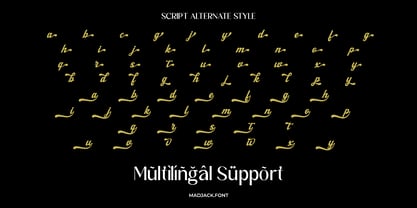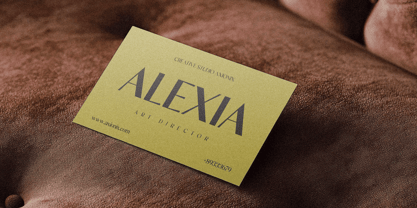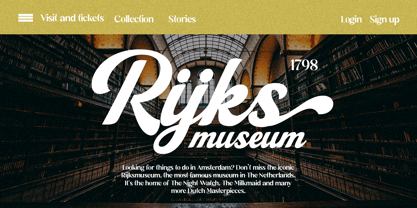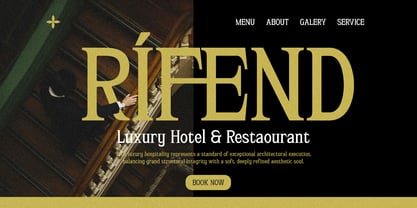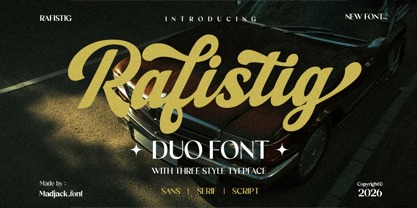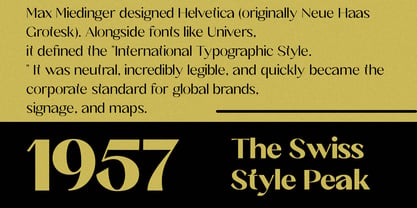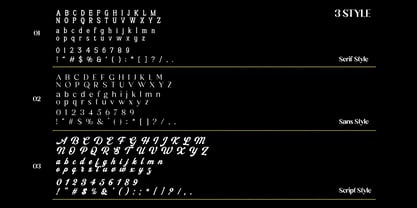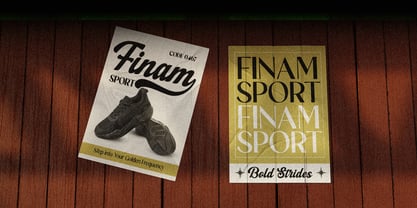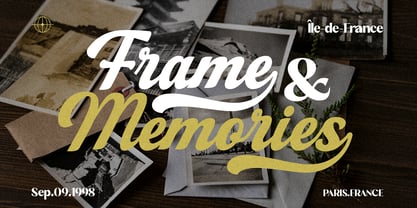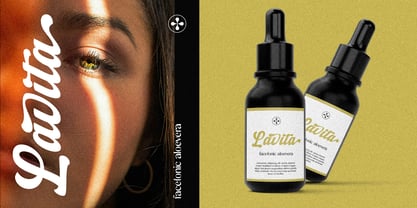
Rafistig
The Rafistig Font Family was designed by Zaki Muhammad and published by madjack.font. Rafistig contains 13 styles and family package options. More about this family
Rafistig is a premium duo font that beautifully blends a bold handwritten script with a sophisticated serif typeface, creating the perfect harmony between modern elegance and timeless luxury. Designed for creatives who want to make a lasting impression, this typeface delivers a refined aesthetic with a strong personality, making every design feel exclusive and memorable.
The script style features smooth flowing curves, bold strokes, and carefully crafted letterforms that provide a natural handwritten appearance while maintaining excellent readability. Meanwhile, the serif companion offers a clean, classic, and high-end look that perfectly complements the expressive script. Together, they create endless typography combinations suitable for both contemporary and vintage-inspired projects.
Whether you're designing luxury branding, fashion campaigns, cosmetic packaging, wedding stationery, restaurant identities, editorial layouts, or premium social media content, Rafistig gives your work an elegant and professional finish. Its versatility allows you to create eye-catching headlines, stylish logos, beautiful product labels, and sophisticated marketing materials with ease.
This font duo is carefully designed to provide balance, flexibility, and creativity, making it an excellent choice for designers, entrepreneurs, and content creators looking to elevate their visual identity.
Perfect For:
• Luxury Branding & Visual Identity
• Logo Design
• Fashion & Beauty Projects
• Cosmetic & Perfume Packaging
• Wedding Invitations & Stationery
• Editorial & Magazine Layouts
• Product Labels
• Restaurant & Café Branding
• Social Media Posts
• Photography Watermarks
• Website Headers
• Merchandise Design
• Quote Designs
• Advertising & Marketing Materials
Font Features:
• Elegant Script Typeface
• Classic Serif Typeface
• Three Typeface Styles Included
• Uppercase & Lowercase Characters
• Numbers & Punctuation
• Multilingual Support
• Ligatures
• Stylistic Alternates
• Smooth and High-Quality Letterforms
• Easy to Mix and Match
• PUA Encoded
Rafistig is more than just a font—it's a complete typography solution that combines elegance, versatility, and sophistication. Whether you're creating a luxurious brand identity or a modern editorial masterpiece, Rafistig helps transform your ideas into visually stunning designs with effortless style.